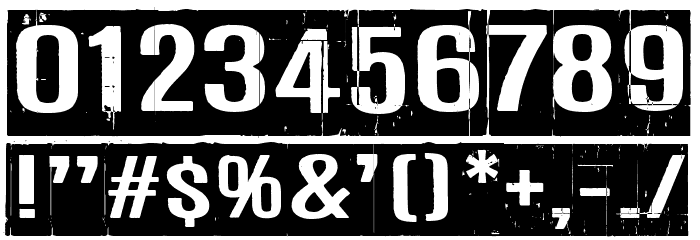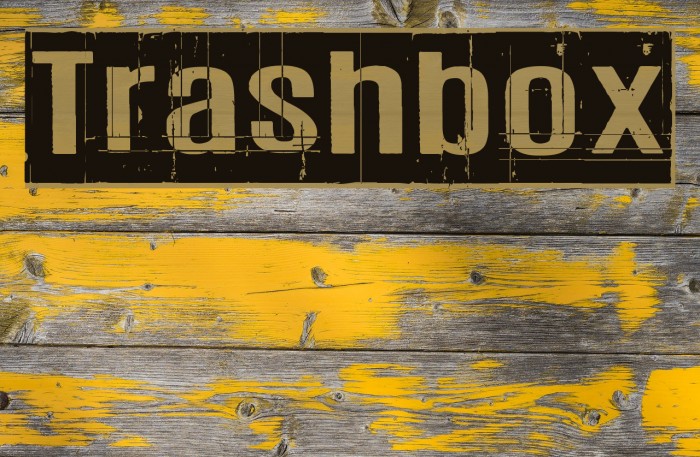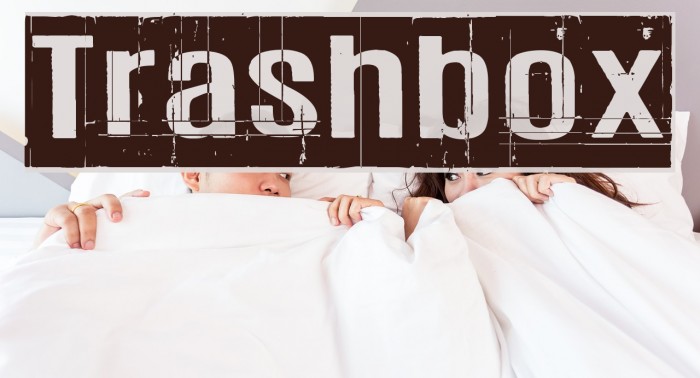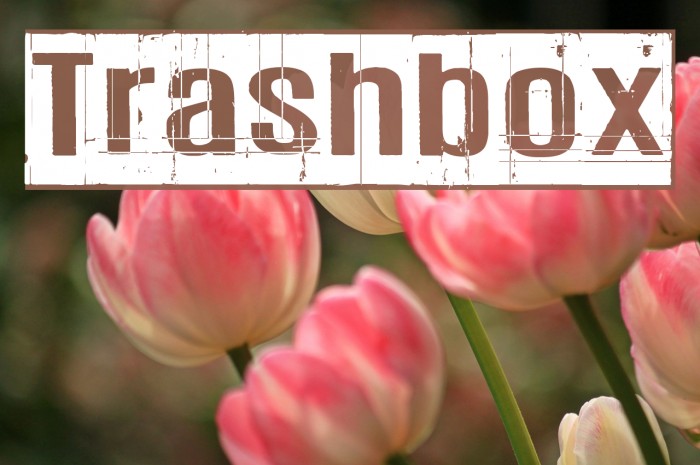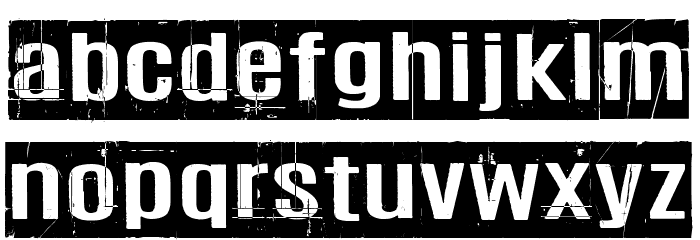
Trashbox Font
Trashbox Description
This font features a bold, distressed style with a grunge aesthetic. The characters are uppercase and lowercase letters, numbers, and a variety of special symbols, all presented with a worn, textured appearance that suggests a vintage or industrial feel. The letters are blocky and robust, with a consistent width and a slightly condensed form. The distressed effect is achieved through irregular edges and a scratched, weathered look, giving the font a rugged and edgy personality. This style is reminiscent of stenciled lettering often seen in urban or industrial settings, making it ideal for designs that require a raw, gritty vibe.
| Overall Style | Grunge, Industrial, Vintage |
| Proposed Projects | Ideal for poster designs, album covers, streetwear branding, or any project that requires a gritty, urban look. |